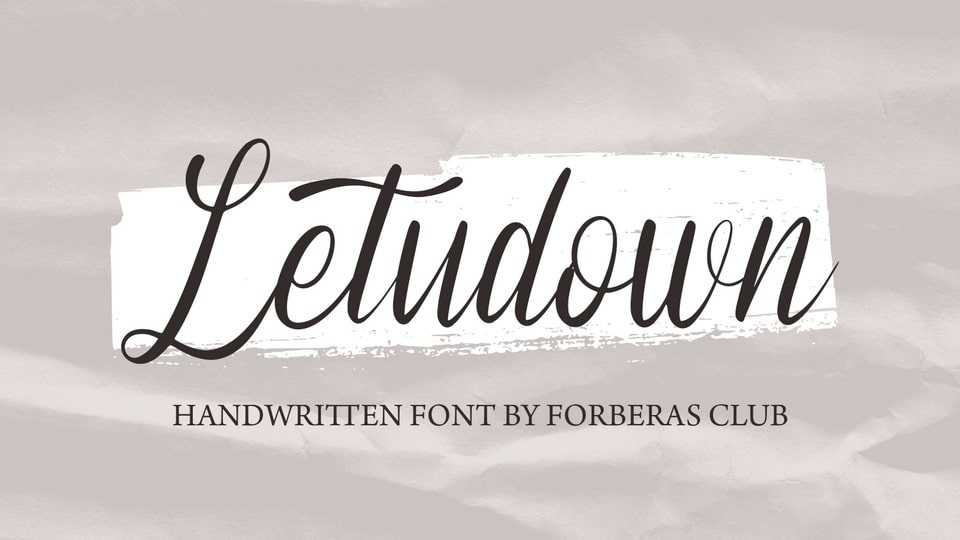
Download Letudown font, a fancy and elegant handcrafted typeface that was created to make your branding shine. It works great on headings, logos, ads, printed quotes, packaging, and even your website or social media branding.